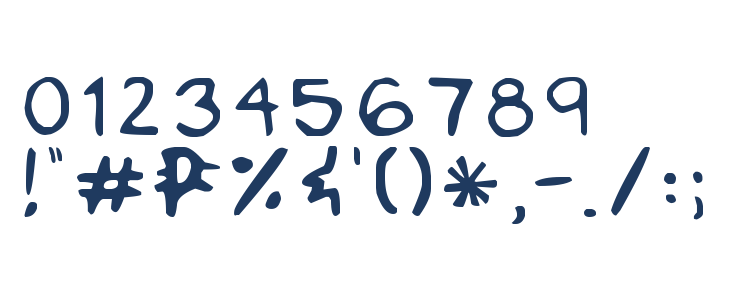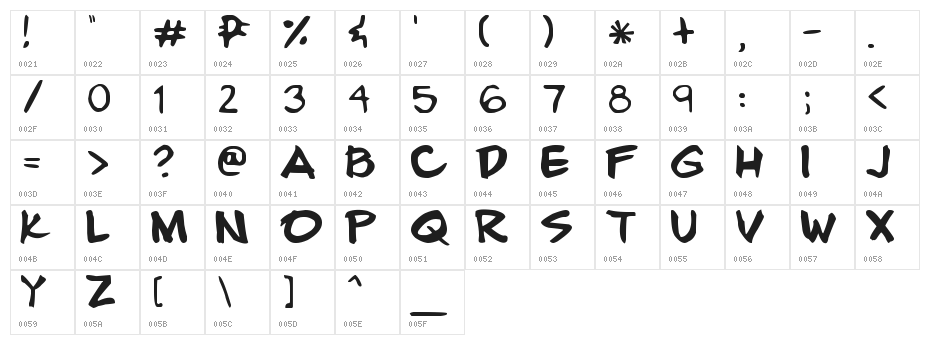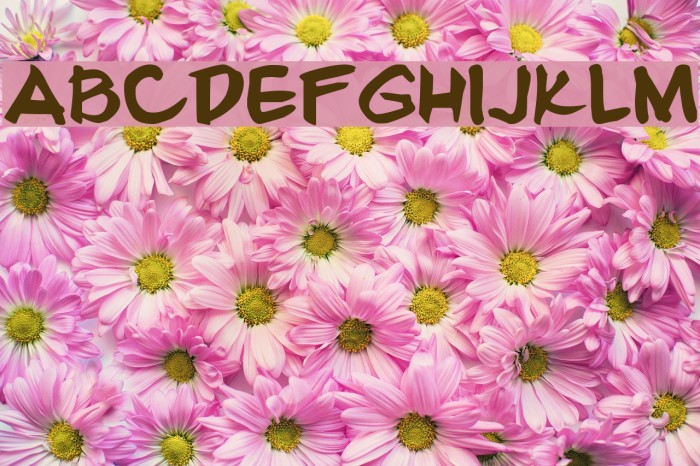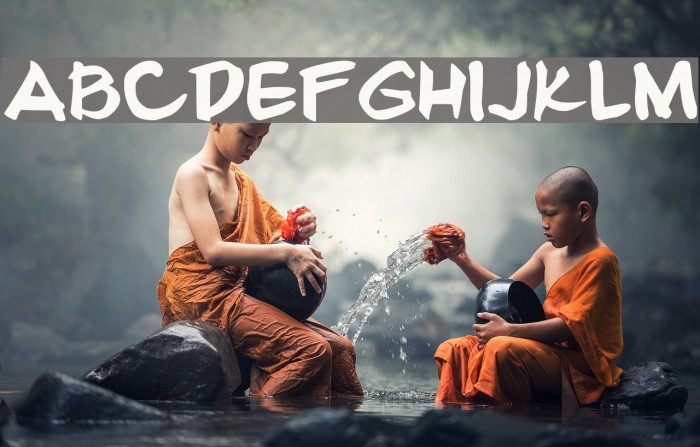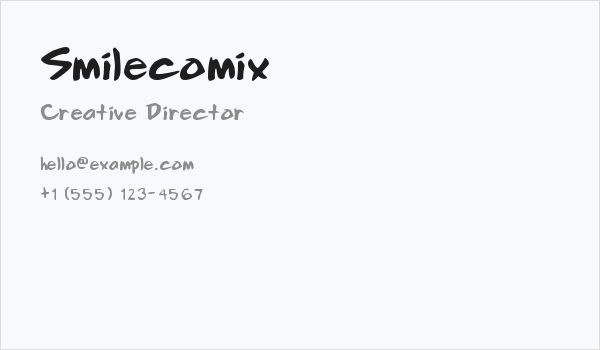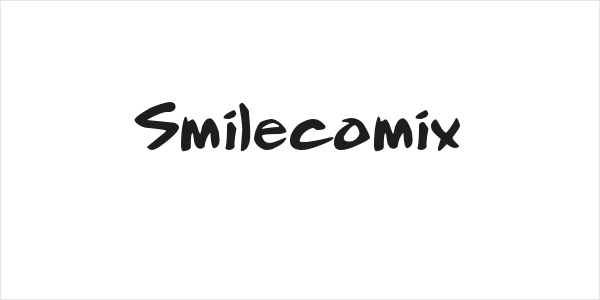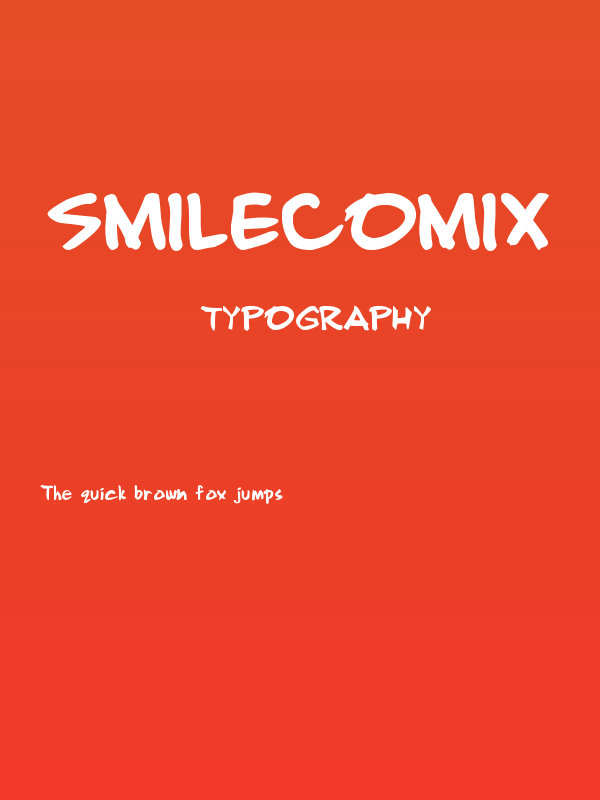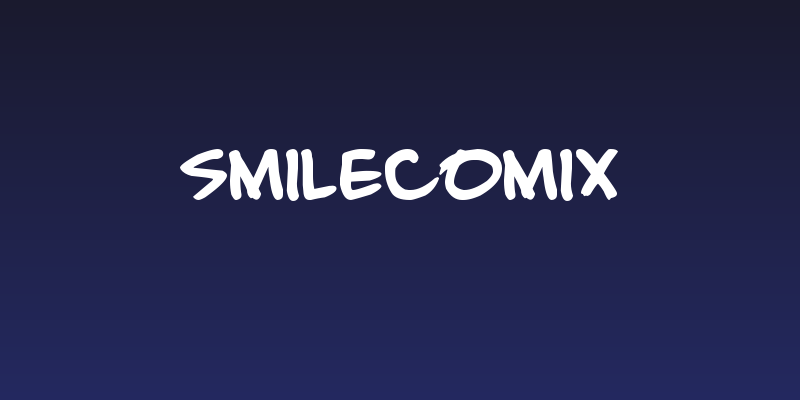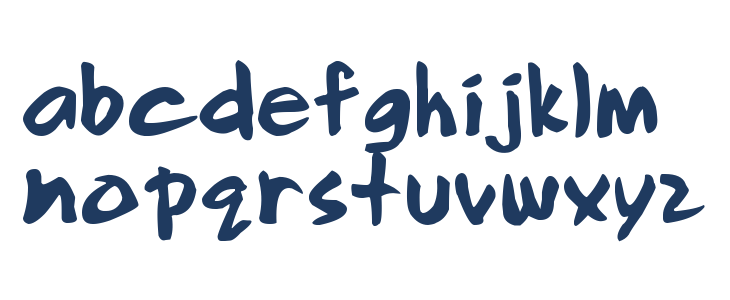
Smilecomix Font
Smilecomix Description
This font features a playful and informal style, characterized by its bold and rounded letterforms. The strokes are uneven, giving it a hand-drawn appearance that adds a whimsical touch. The uppercase and lowercase letters maintain a consistent style, with a slight slant that enhances its casual feel. The numerals and special characters follow the same aesthetic, ensuring a cohesive look across all elements. Its boldness makes it stand out, while the irregularities in stroke width contribute to its unique charm.
Proposed ProjectsIdeal for comic books, children's books, playful branding, and informal event invitations.